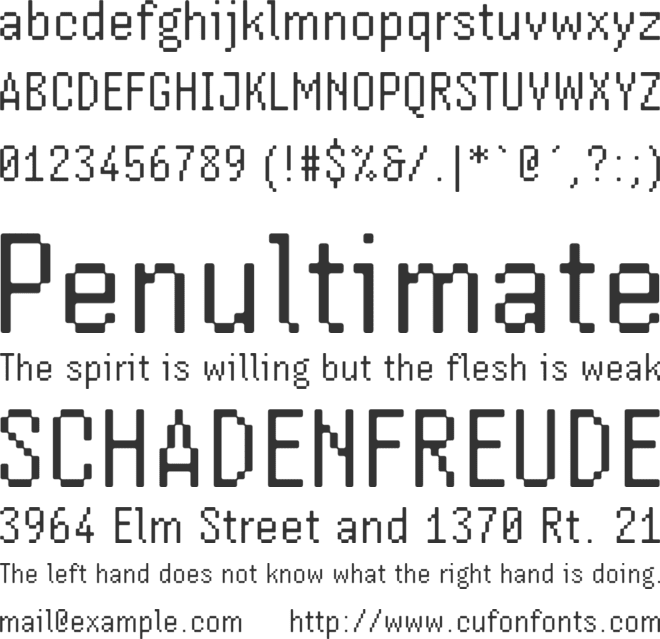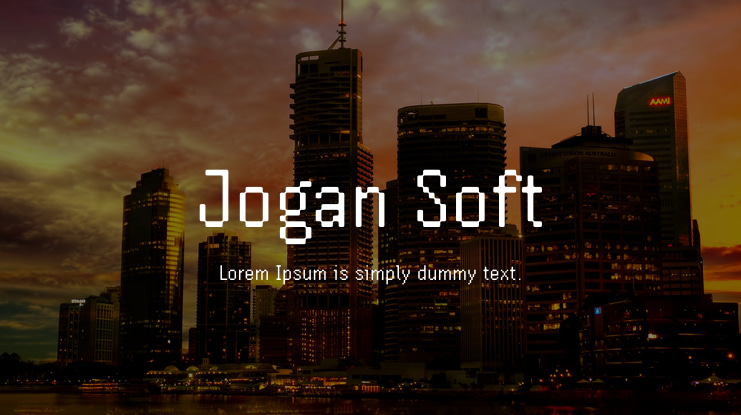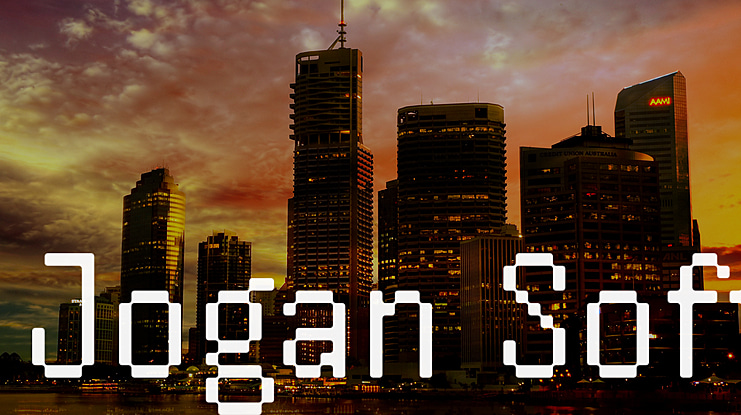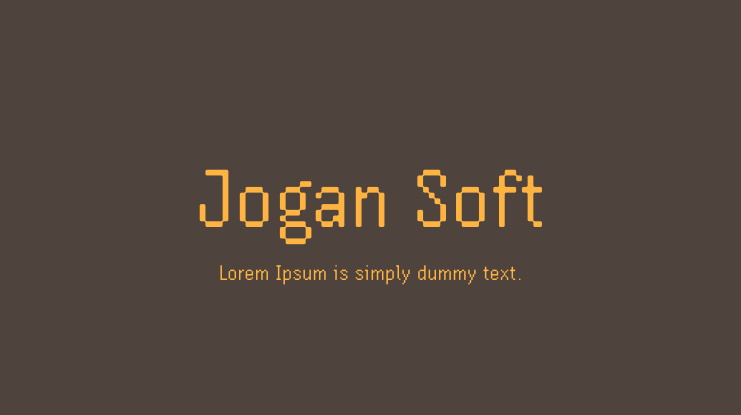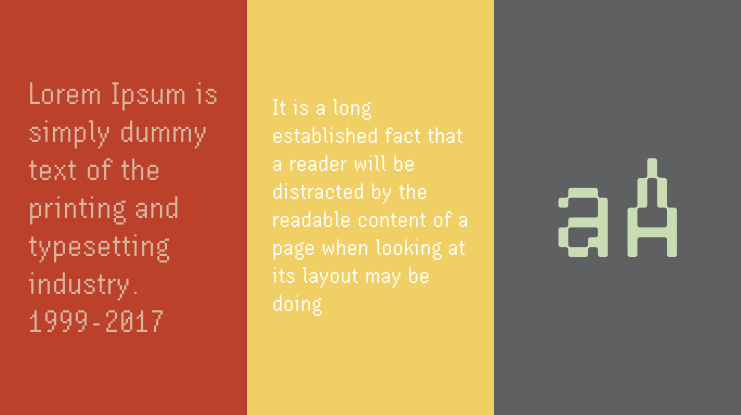
Jogan Soft Font
Inspired by the early days of video games where the graphics were made of squares (pixels), Wahyu Wibowo comes up with pixel based typeface design, Jogan, but instead of having medium width, he decided to make it narrow which is rarely exist in pixel style font.